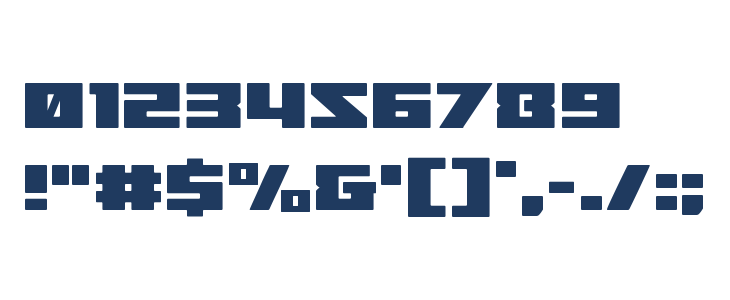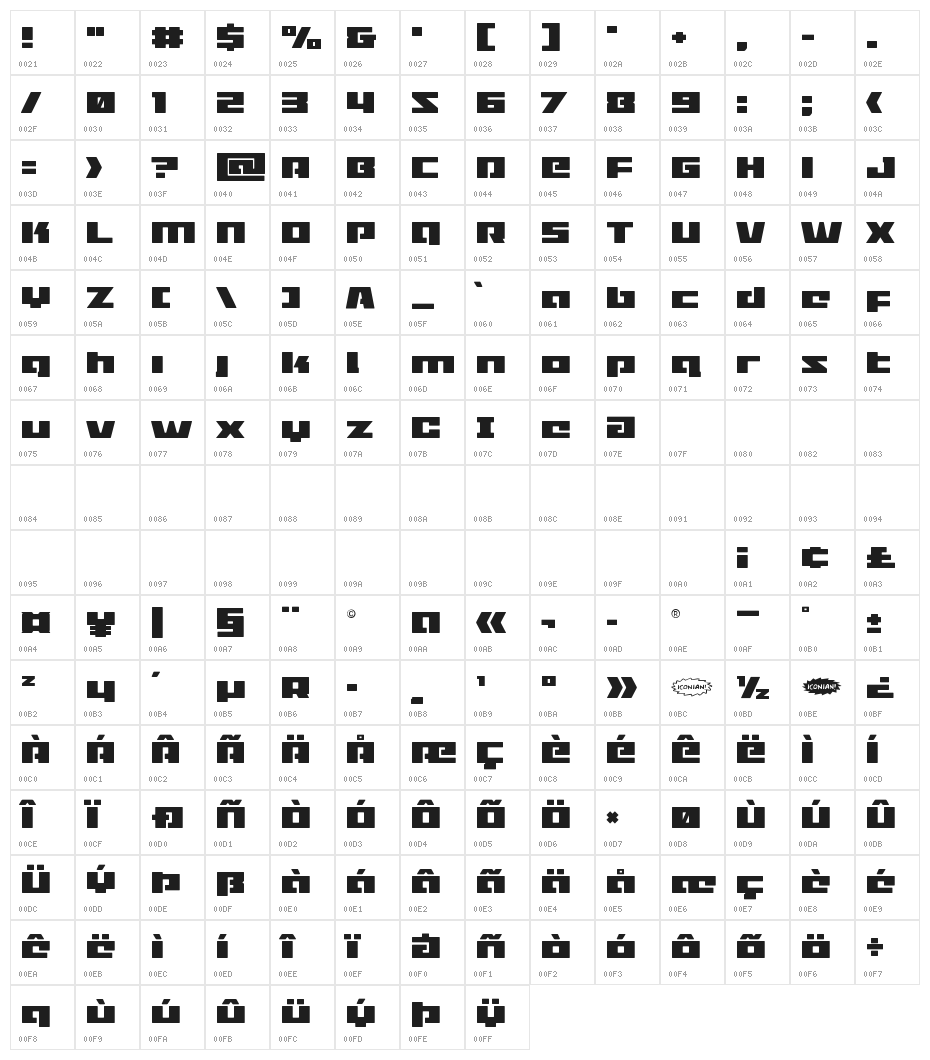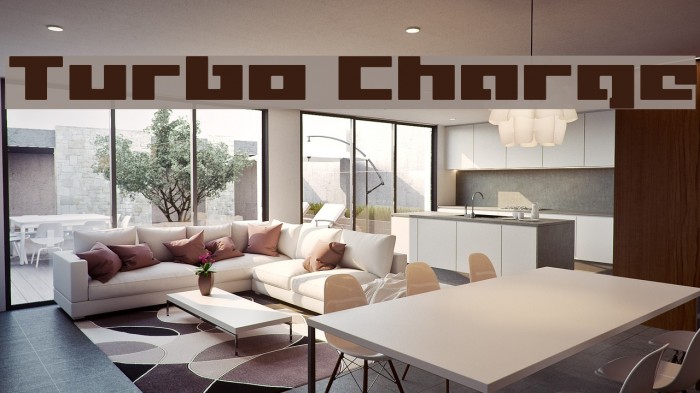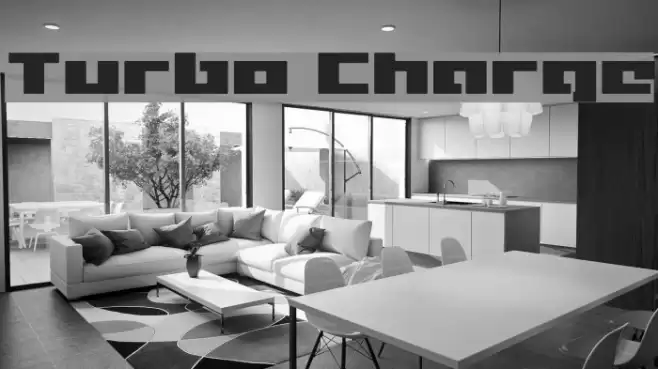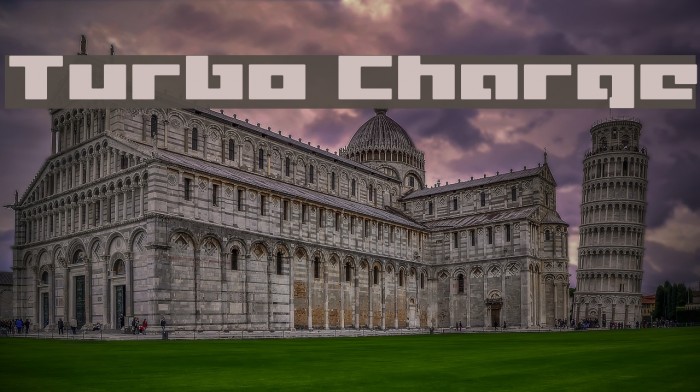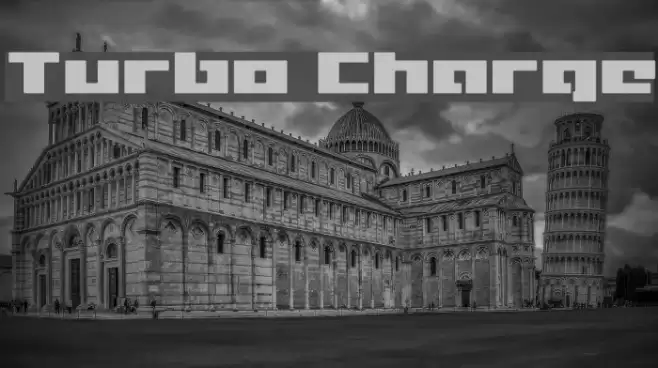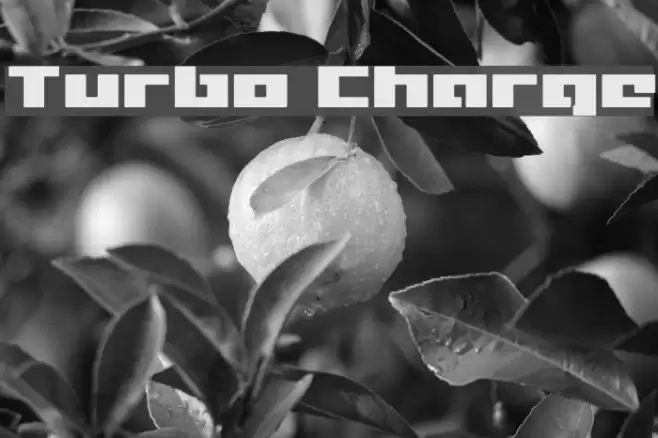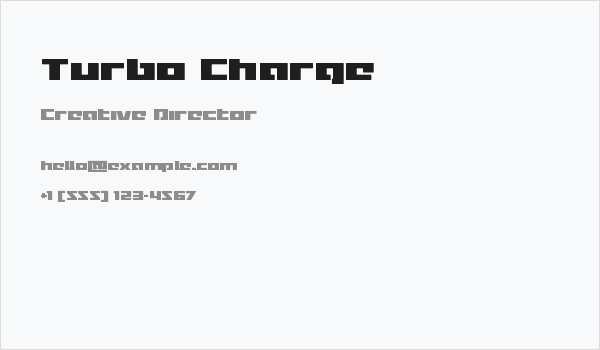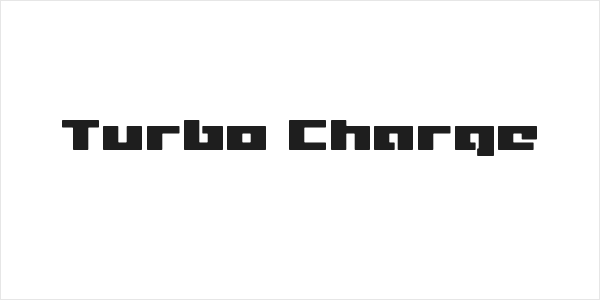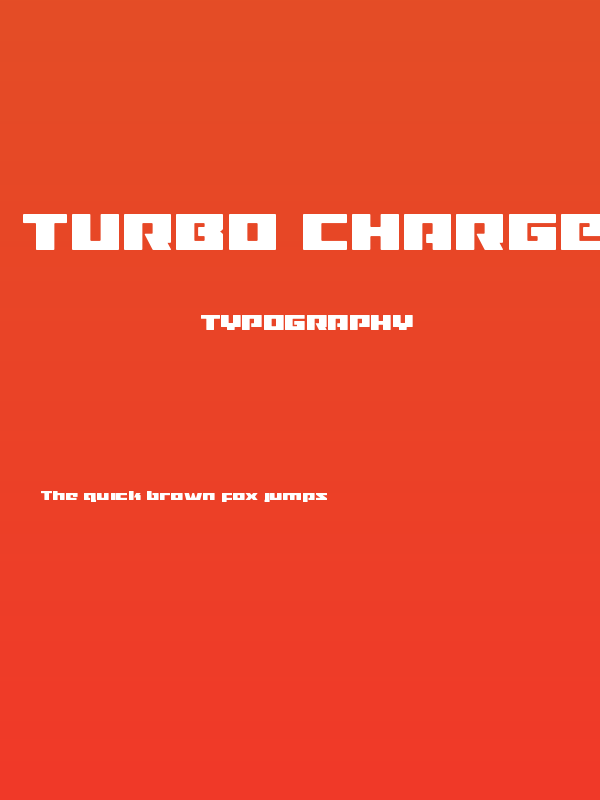
Turbo Charge Font
Turbo Charge Description
This font features a bold, geometric design with a futuristic and industrial feel. The characters are constructed with thick, blocky shapes, giving them a strong and impactful presence. The edges are sharp and angular, contributing to a modern and edgy aesthetic. The uppercase and lowercase letters maintain a consistent style, with a uniform height and width that enhances readability. The numerals and special characters follow the same design principles, ensuring a cohesive look across all elements. This font is ideal for projects that require a bold statement or a high-tech vibe.
| Proposed Projects | Ideal for technology branding, video game titles, sci-fi posters, and modern advertising. |